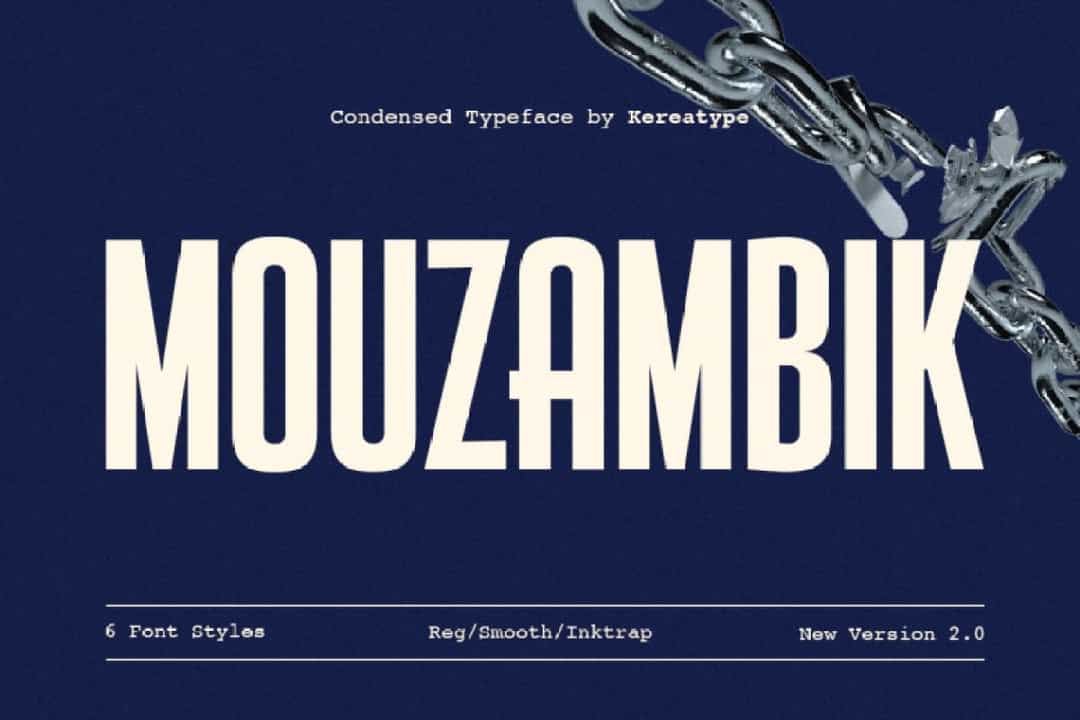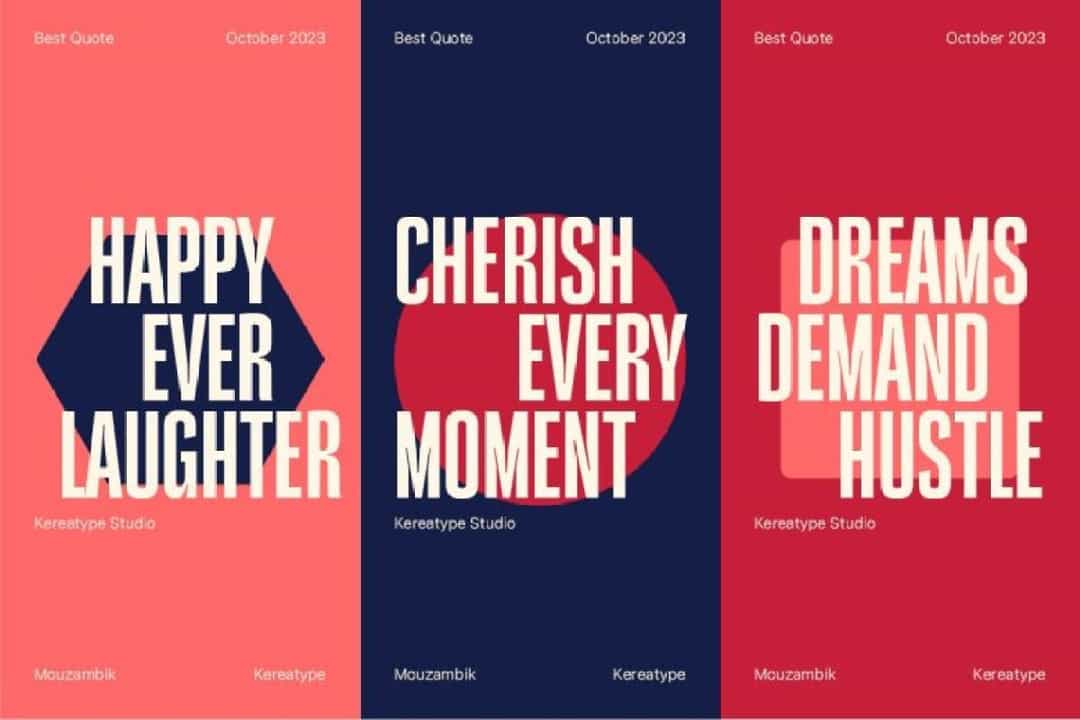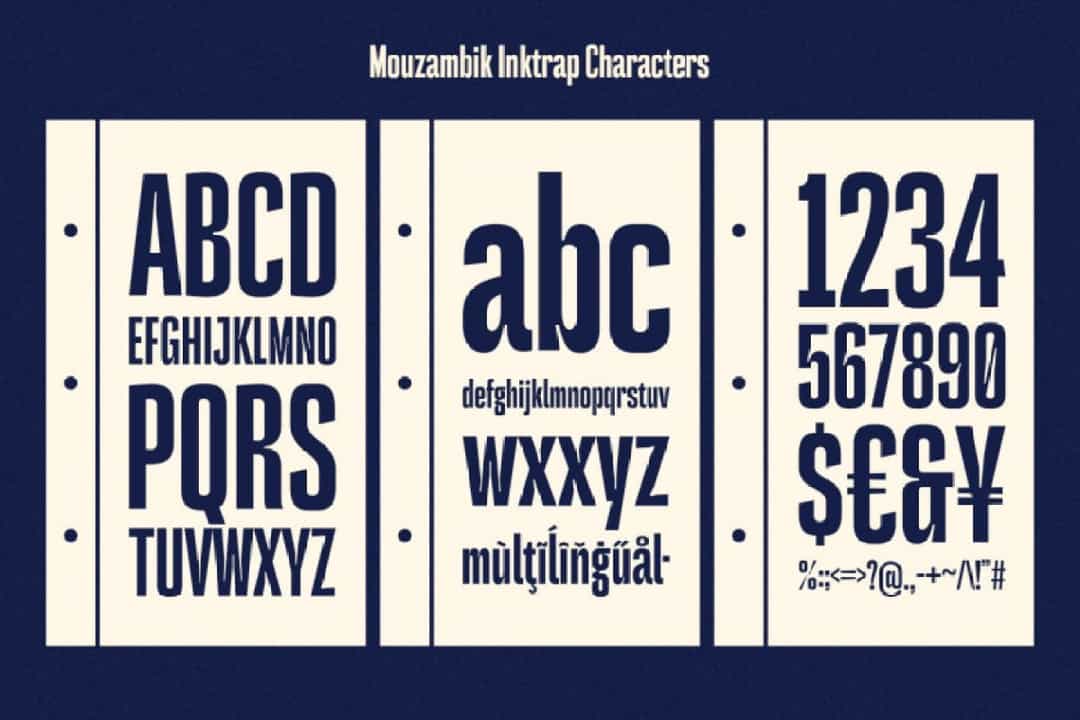
Mouzambik can be best described as a condensed, simple sans serif font with an edge and complex personality. Available in three styles – Regular Inktrap Smooth with each having italics – Mouzambik maintains its appeal in small point sizes up to 200 points with equal ease.